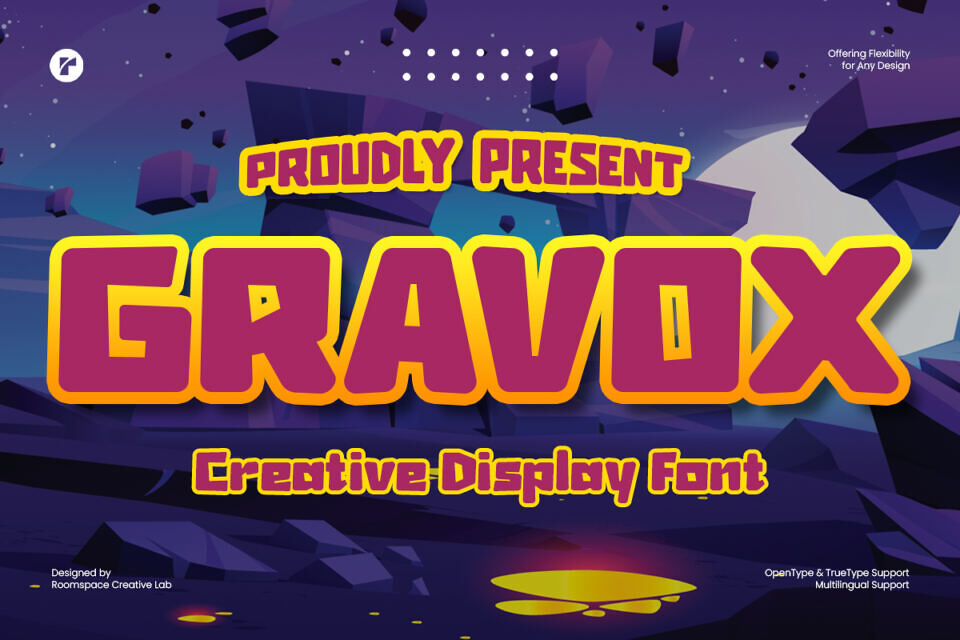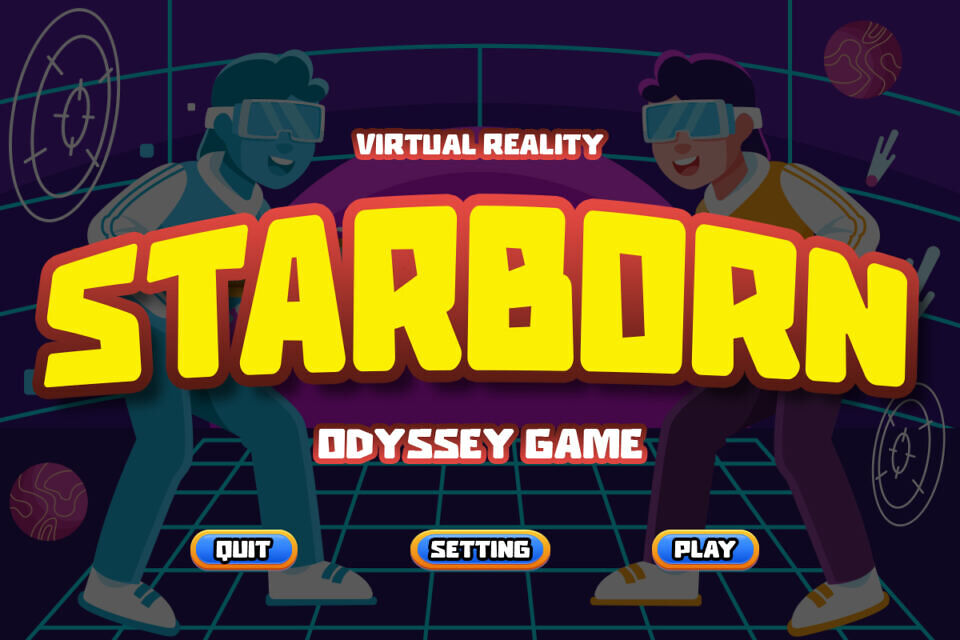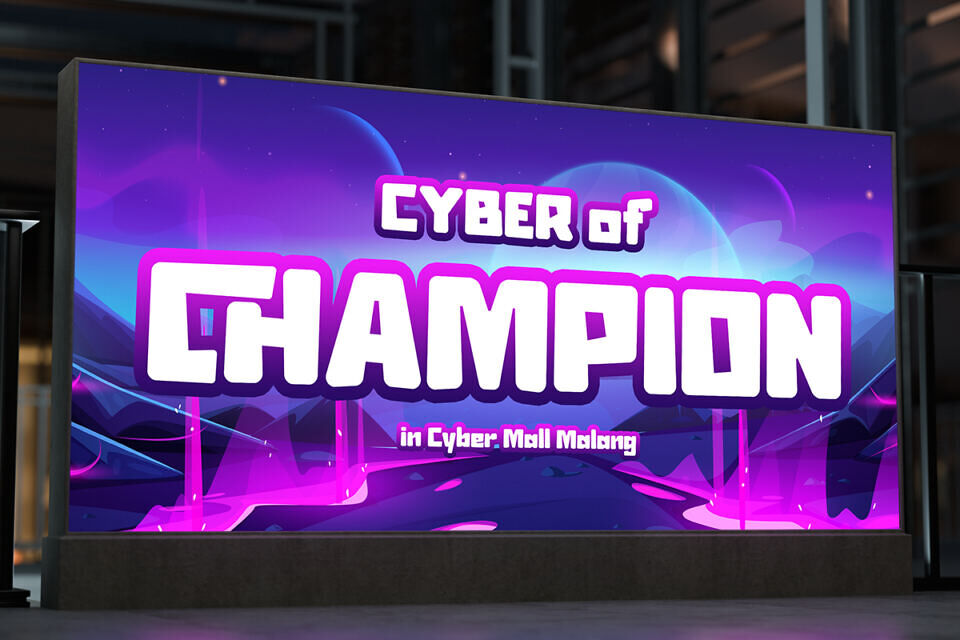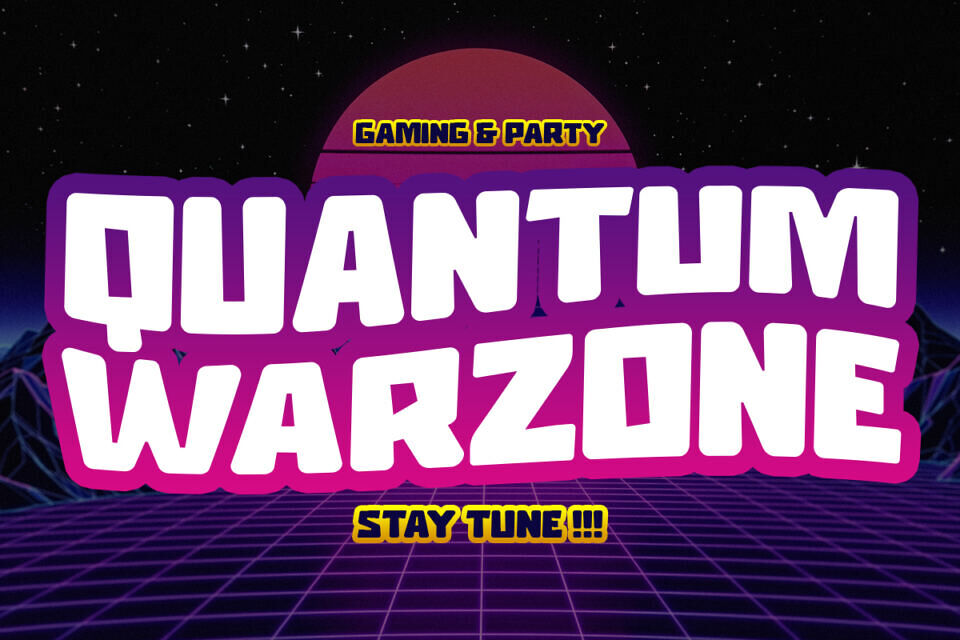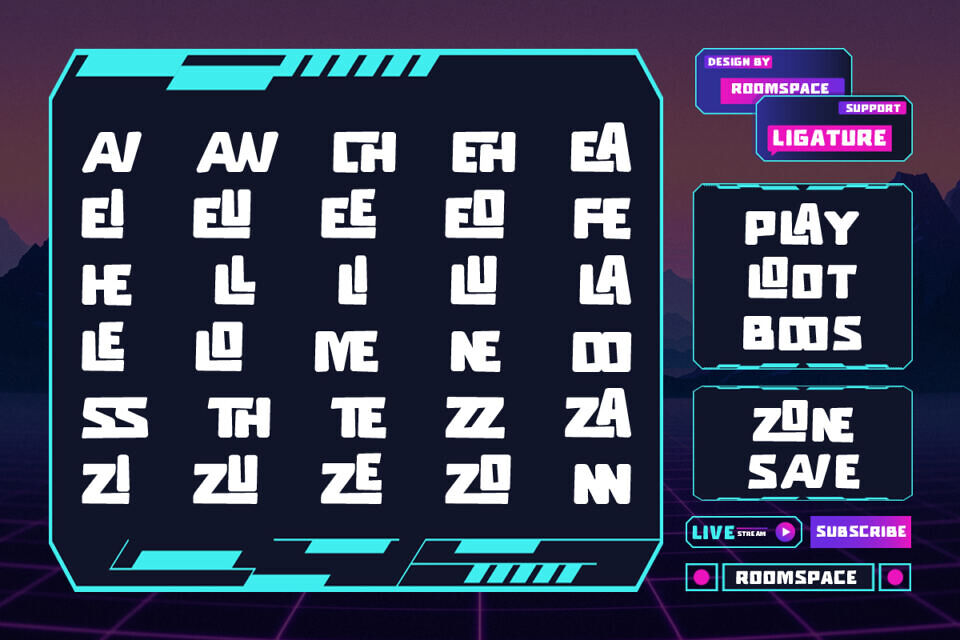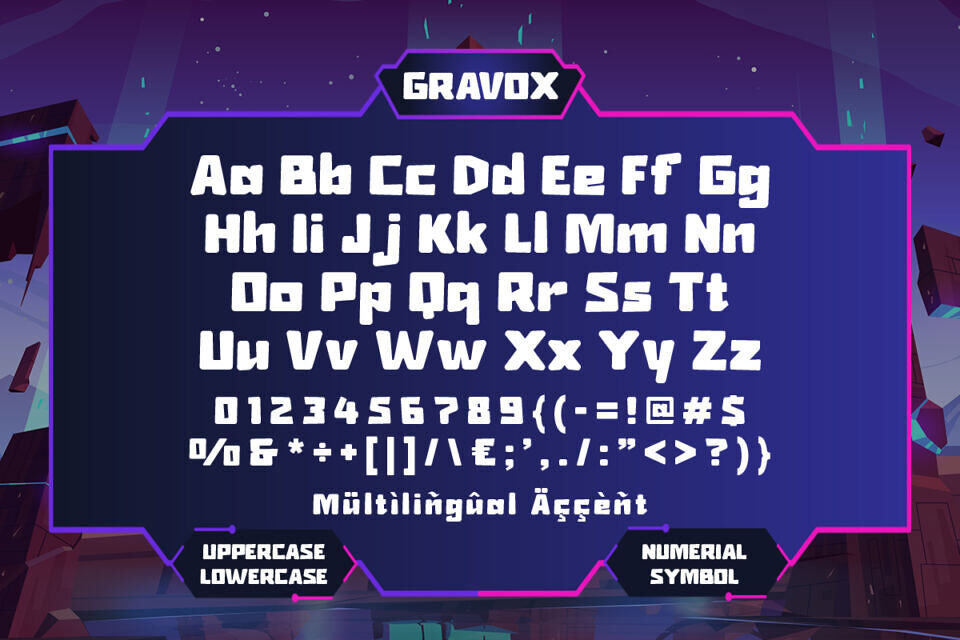
Gravox Font
Gravox is a bold and playful display font crafted to bring energy and personality to your creative projects. With its chunky letterforms, rounded edges, and dynamic proportions, this typeface radiates fun and confidence. Designed for eye-catching titles and vibrant visuals, Gravox adds a splash of excitement that instantly grabs attention.
Perfect for game titles, posters, cartoons, and digital illustrations, Gravox blends nostalgic retro charm with a modern twist. Each character is designed with smooth curves and strong outlines, ensuring readability while maintaining its quirky, expressive nature. It’s the perfect font for designers who want to convey adventure, creativity, and playfulness.